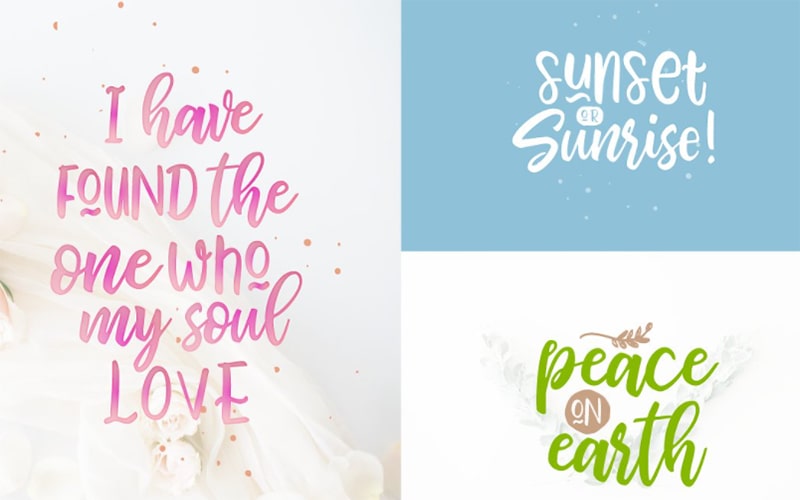
Bhatoshine Script is a premium font that is sold on the creative market. This is a Script, Handwritten, and Calligraphy typeface. It is a great font.
A hand-brushed, fun, warm, and cozy typeface. Typia Nesia took charge to design the Bhatoshine font for the first time and updated it on Dec 18, 2017.
The Bhatoshine Script font combines with the Bhatoshine Caps font to make each word unique, and awesome. Most designers prefer to work with this font.
Illustrations and brushes have been cleaned to add punch to your typography designs. This amazing font has come with 6 unique styles available in different versions.
Bhatoshine Script Font
This beautiful typography font is suitable for any design needs such as invitations, Art quotes, branding, stationery design, blog design, and modern advertising design.
It is also perfect for modern invitation design, Home decor, Book and Cover titles, special events, birthdays, custom mugs, pillows, t-shirts, any brush lettering needs, and plenty more.
Bhatoshine script font comes with upper and lowercase Standard Characters, Punctuation, and Numerals. It consists of 187 defined characters.